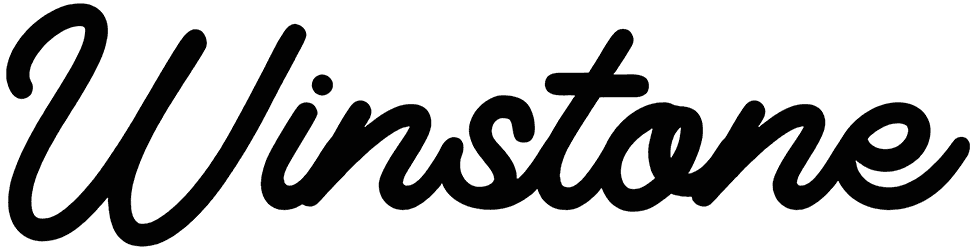
Winstone Font
You can always count on a handwritten font such as this one to create a captivating face for your words. The friendly vibe of Winstone font’s letters can give you a chance to have a memorable presentation. There is no offer for numbers, but this cursive font will make a lovely mood for your Christmas postcard, or whatnot.